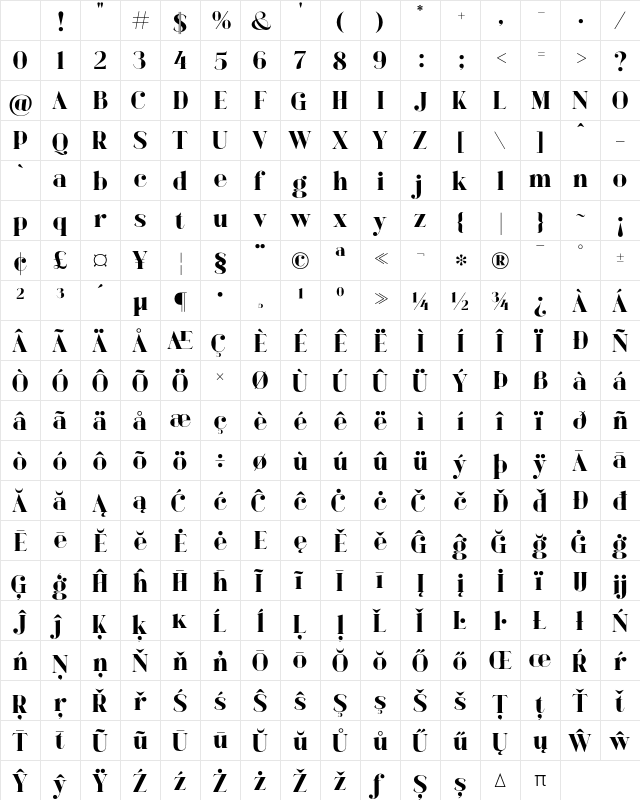
Bagoni Type Regular Free Font
Bagoni Type Regular
Foundry: Attract Studio
Designer: Muammar Kadafi
Design Context for Bagoni Type
Bagoni Type is a composed and adaptable typeface that performs quietly and consistently across a wide range of design contexts.